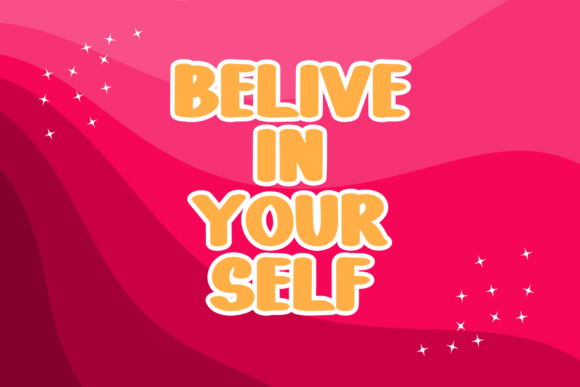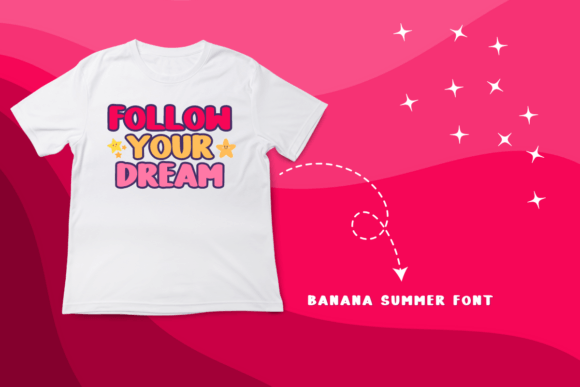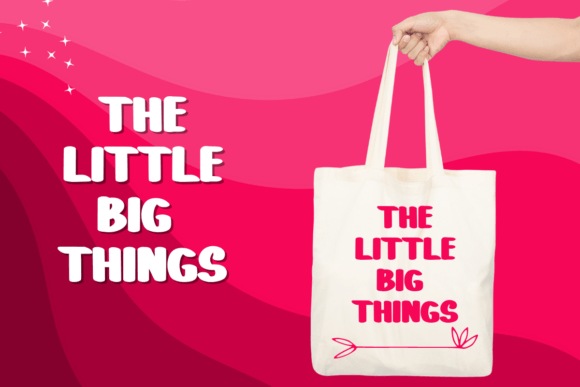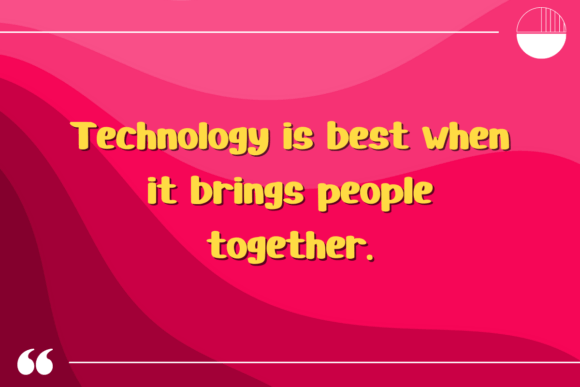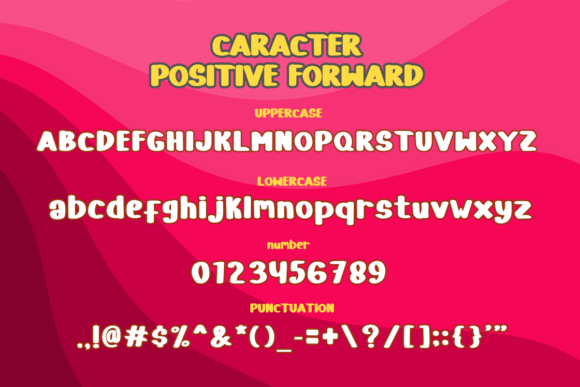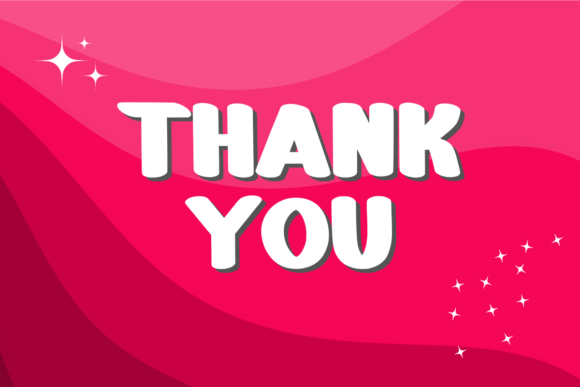
Banana Summer Font: A Fun and Playful Display Font for Your Creative Projects
Are you looking for a font that can add a touch of nostalgia and playfulness to your designs? Look no further than the Banana Summer Font! This fun and upbeat display font is perfect for designers and crafters who want to bring back the spirit of the retro era in their creative projects.
What is Banana Summer Font?
Banana Summer Font is a fun and playful display font that is inspired by the retro era. Its cute curves and bold shape exude a sense of nostalgia and joy, making it perfect for a variety of creative projects. Whether you’re designing a disco-inspired poster, a party invitation, or a retro-themed craft, Banana Summer Font is sure to add a stylish touch of fun and playfulness.
Key Features of Banana Summer Font
- Fun and Playful Design: Banana Summer Font has a unique and playful design that is sure to grab attention. Its cute curves and bold shape make it perfect for creating eye-catching headlines and titles.
- Retro-Inspired: This font is inspired by the retro era, making it perfect for designers and crafters who want to create vintage-themed designs.
- High-Quality Design: Banana Summer Font is designed with high-quality craftsmanship, ensuring that it looks great in any design.
Uses of Banana Summer Font
Banana Summer Font is a versatile font that can be used in a variety of creative projects. Here are some ideas to get you started:
- Disco-Inspired Designs: Add a touch of nostalgia to your disco-inspired designs with Banana Summer Font. This font is perfect for creating eye-catching posters, flyers, and brochures.
- Party Invitations: Create fun and playful party invitations with Banana Summer Font. This font is perfect for birthday parties, baby showers, and other celebrations.
- Retro-Themed Projects: Banana Summer Font is perfect for retro-themed projects, such as crafting, scrapbooking, and DIY projects.
- Branding and Packaging: Use Banana Summer Font to add a touch of playfulness to your branding and packaging designs.
Why Choose Banana Summer Font?
There are many reasons why you should choose Banana Summer Font for your creative projects. Here are a few:
- Unique Design: Banana Summer Font has a unique and playful design that is sure to grab attention.
- High-Quality Craftsmanship: This font is designed with high-quality craftsmanship, ensuring that it looks great in any design.
Tips for Using Banana Summer Font
Here are a few tips for using Banana Summer Font in your creative projects:
- Use it as a Display Font: Banana Summer Font is perfect for use as a display font. Use it to create eye-catching headlines and titles.
- Experiment with Colors: This font looks great in a variety of colors. Experiment with different colors to find the one that works best for your design.
- Pair it with Other Fonts: Banana Summer Font can be paired with other fonts to create a unique and interesting design.